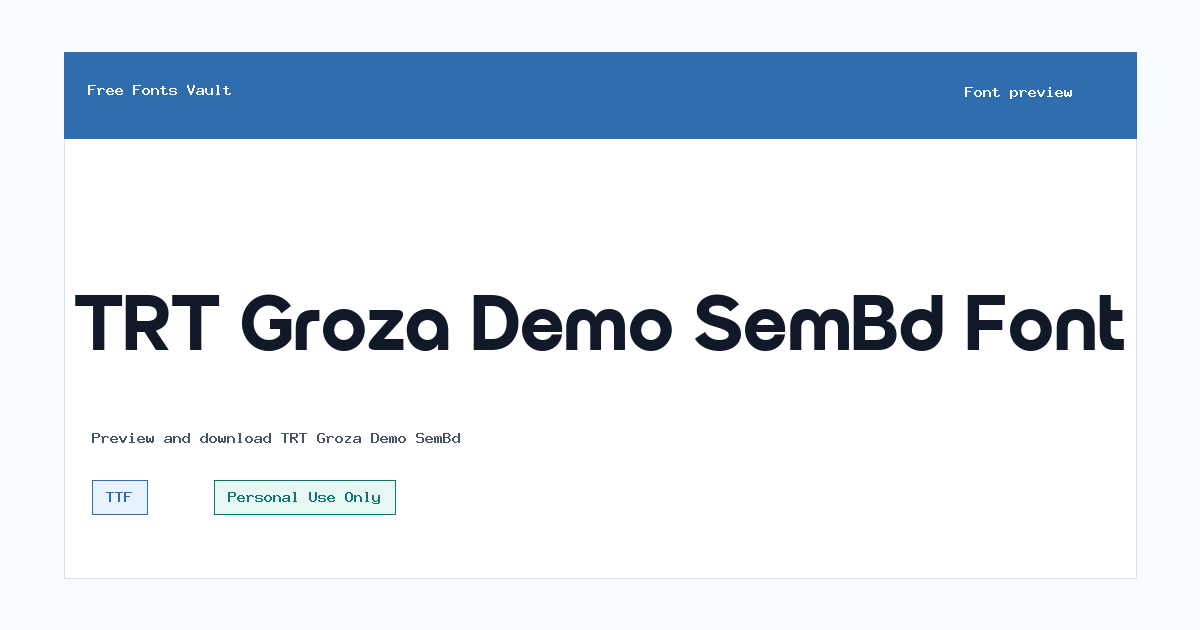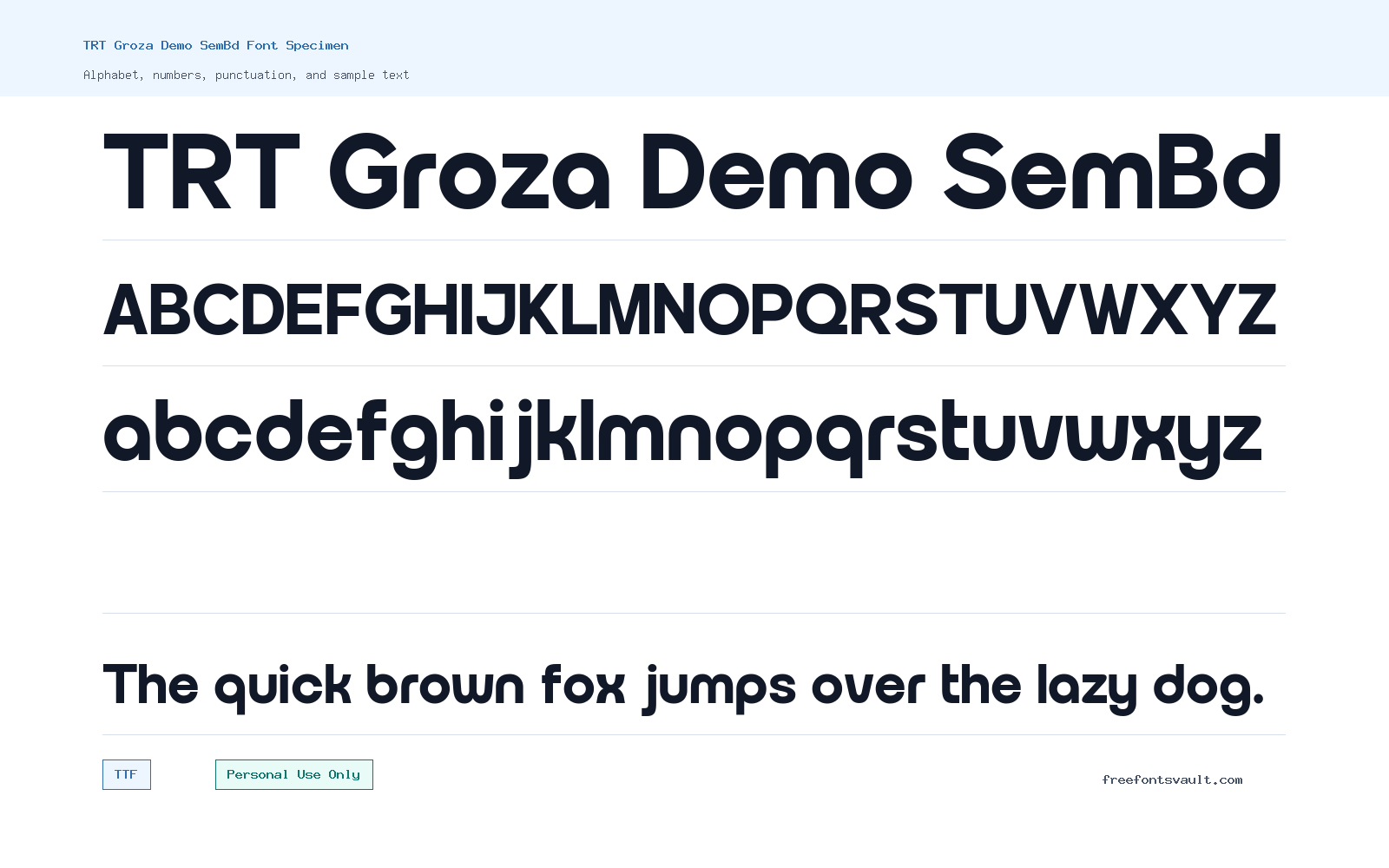
TRT Groza Demo SemBd
- Designer Maheza Ferro Annas Jasmindar of Truetype
- Foundry Truetype
TRT Groza Demo SemBd font.
TRT Groza Demo SemBd is a semibold TrueType font from the TRT Groza demo family. It gives text a firm, modern sans serif look, making it useful for visitors who want to test bold headings, display words, and short layout samples before downloading.
About TRT Groza Demo SemBd
TRT Groza Demo SemBd uses a normal style with a 700 font weight, so it is better suited to emphasis than long reading text. The semibold weight can help names, titles, buttons, poster lines, and preview phrases stand out without looking as heavy as a full black weight. Because this listing is for a demo font file, the safest way to judge it is to type your own words in the preview and check spacing, uppercase forms, punctuation, and number shapes before using it in a design.
Use TRT Groza Demo SemBd for short, controlled text where a clean sans serif tone is helpful. It can work for mockups, personal posters, social graphics, heading tests, and font comparison boards. For body copy, test it carefully at smaller sizes, because semibold fonts can become dense in paragraphs. If you plan to pair it with another font, start with a lighter neutral sans serif or a simple serif for supporting text, and let TRT Groza Demo SemBd handle the stronger headline role.
- Semibold 700 weight for headings, labels, and short display text
- Personal design drafts, mockups, posters, and social media text tests
- Headline previews, logo-style text experiments, buttons, and short typographic layouts
The designer is listed as Maheza Ferro Annas Jasmindar of Truetype, with Truetype also listed as the foundry.
What weight is TRT Groza Demo SemBd?
This variant is listed with a 700 weight, which is commonly used for bold or semibold emphasis in headings and interface text.
Who designed TRT Groza Demo SemBd?
The designer is listed as Maheza Ferro Annas Jasmindar of Truetype.